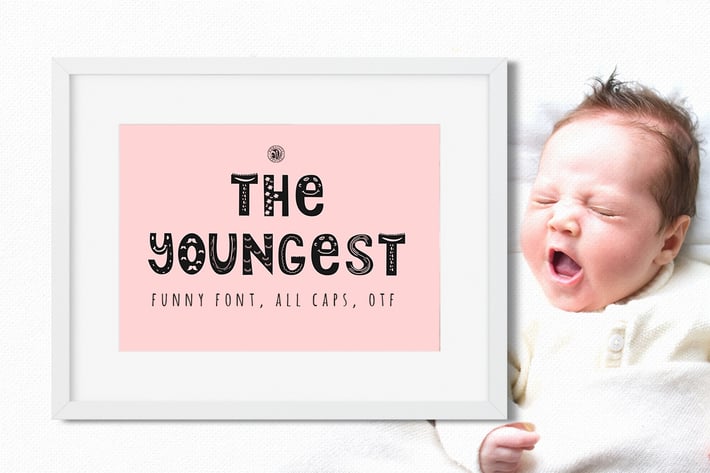
The Youngest Font
The Youngest Font - all caps font. Ideal for invitations, logos, branding, blogs, handmade craft items, printed paper items and more.
- all caps font, numbers, punctuation